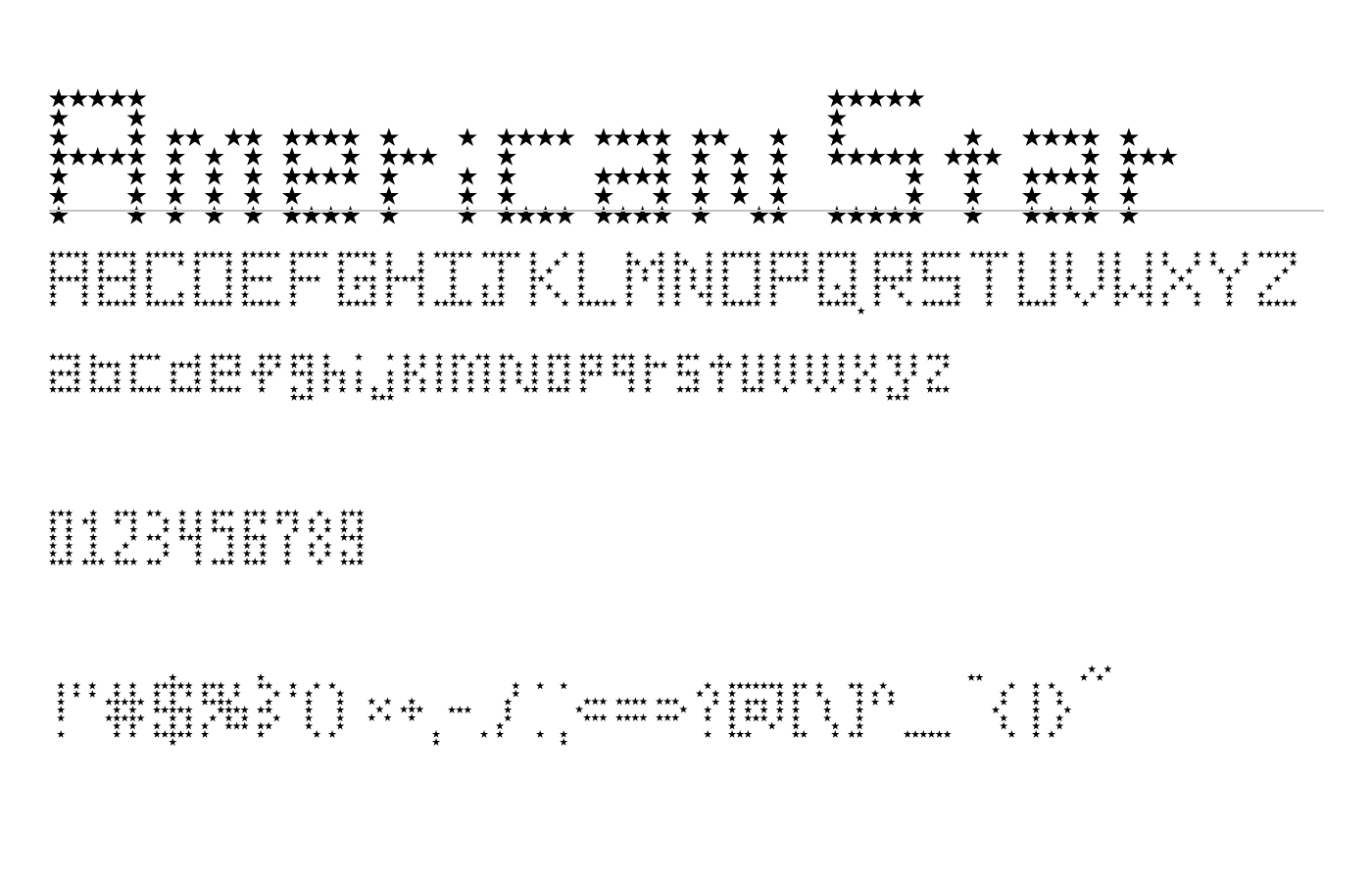
American Star Font is a playful and decorative sans serif typeface formed entirely from small star shapes, giving it a unique and whimsical personality. Its uniform stroke weight and geometric, grid-like structure create a clean yet eye-catching effect, ideal for festive, patriotic, or children's design projects. This font works best in headlines, posters, logos, and creative branding where a bold and fun visual statement is desired.
American Star Font
About American Star Font
| Font family | American Star Font |
| Designer | Denzyltron |